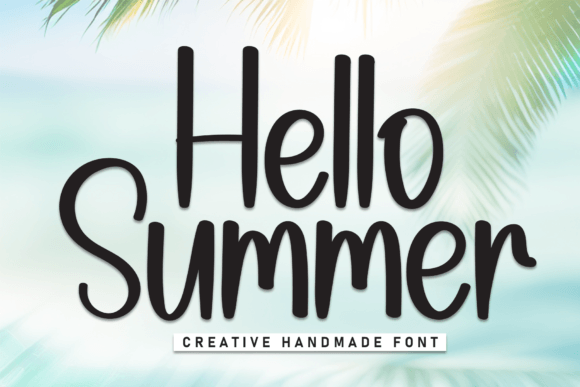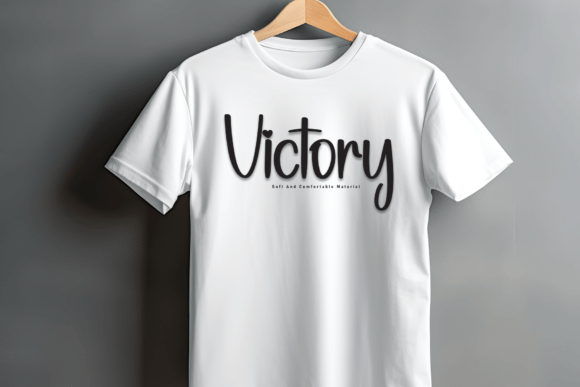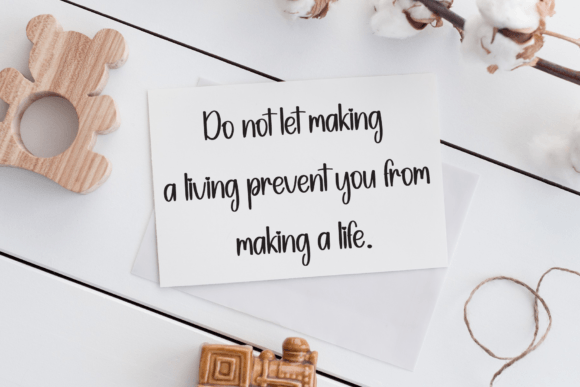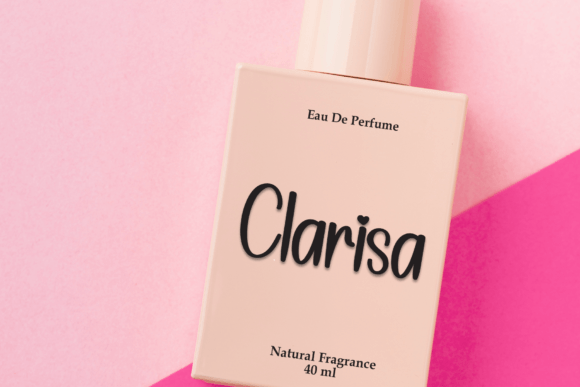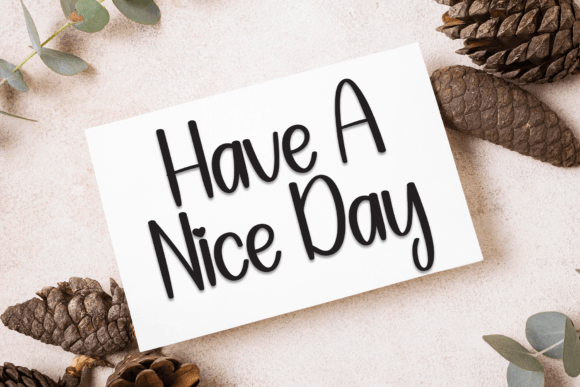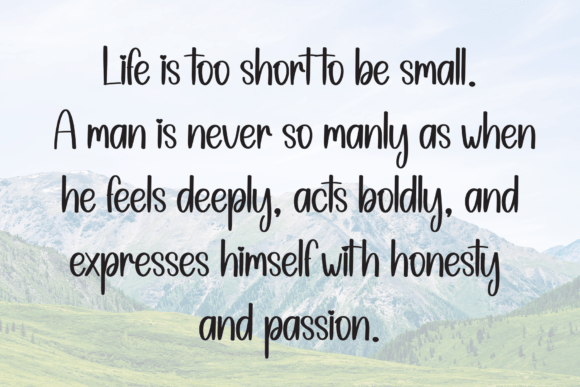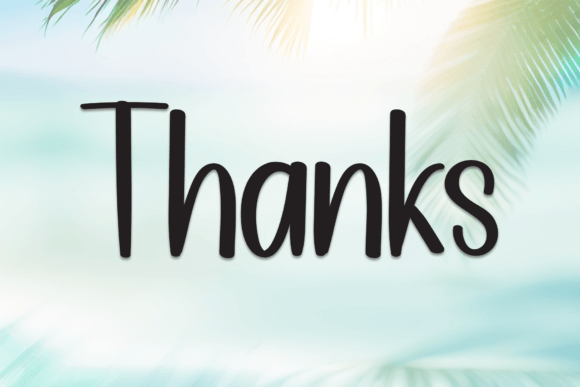
Welcome to the Sweetest Time of the Year: Hello Summer Font
As the sun shines brighter and the days grow longer, I find myself drawn to projects that radiate warmth and joy. Whether it’s designing a wedding invitation or creating a birthday card, there’s something special about capturing the essence of a happy moment. And that’s exactly where the Hello Summer Font comes in – a sweet and friendly handwritten font that’s sure to put a smile on anyone’s face.
This charming font is perfect for adding a touch of whimsy to your designs, making it an ideal choice for wedding invitations, greeting cards, and other projects where you want to convey a sense of playfulness and delight. For designers, the Hello Summer Font offers a valuable tool to infuse their work with a personal touch and make it truly special.
Hello Summer Font Key Features
- Font Family: Hello Summer Font is a unique and playful sans-serif font family designed for casual and creative applications.
- Unique Characteristics: Features a modern and friendly design, with subtle rounded edges and a relaxed feel, making it perfect for summer-themed designs, travel, and lifestyle projects.
- Character Set: Includes a wide range of characters, including uppercase and lowercase letters, numbers, punctuation marks, and symbols, making it a versatile font for various applications.
Hello Summer Font Review
Overall, I think the Hello Summer Font is a lovely addition to any design project. It’s perfect for creating a warm and inviting atmosphere, especially for summer-themed projects or branding.
What works well: ✨ The font’s unique blend of modern and vintage elements makes it stand out from more generic sans-serif fonts. The subtle rounded edges and flowing lines give it a friendly and approachable feel. ✨ The font also comes with a range of styles, from light to bold, which allows for a lot of versatility in its application.
Limitations: ⚠️ One thing to note is that the font may not be suitable for projects that require a lot of fine detail or precision typography. The font’s rounded edges can sometimes make it difficult to read in smaller sizes or with certain line lengths. ⚠️ Additionally, the font’s weight may not be ideal for projects that require a lot of emphasis or contrast.
Overall, I think the Hello Summer Font is a great choice for designers who want to add a touch of whimsy and personality to their projects. While it may have some limitations, its unique style and versatility make it a great addition to any design toolkit.
- Unique blend of modern and vintage elements
- Range of styles from light to bold
- Perfect for summer-themed projects or branding
- May not be suitable for projects requiring fine detail or precision typography
- Weight may not be ideal for projects requiring emphasis or contrast
Practical Application Guide for “Hello Summer Font”
For the best results, use the “Hello Summer Font” in bold and uppercase letters to emphasize headings and titles.
The “Hello Summer Font” is ideal for summer-themed designs, such as invitations, party decorations, and social media graphics.
It’s also suitable for creating a fun and playful atmosphere in marketing materials, such as flyers and brochures.
Great Vibes Font is a beautiful, elegant script font perfect for creating a relaxing atmosphere. It’s ideal for use in beach-themed designs, wedding invitations, and any other project that requires a touch of sophistication.
Compared to Hello Summer Font, Great Vibes Font has a more refined and classic look, making it suitable for formal events and designs that require a bit of elegance. While Hello Summer Font is bolder and more playful, Great Vibes Font is a great choice for those who want a softer, more romantic feel.